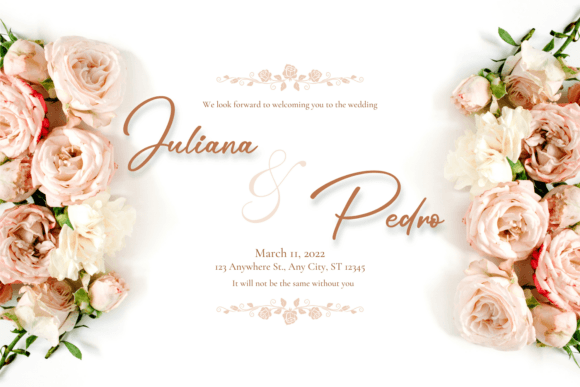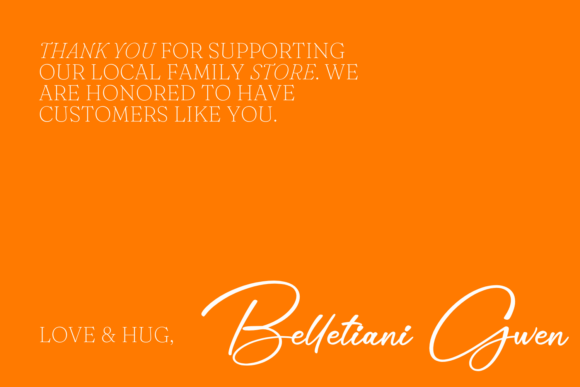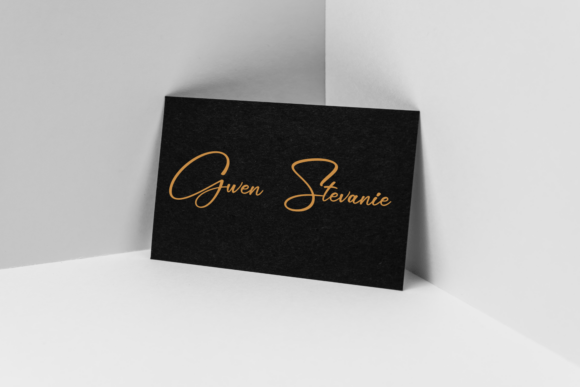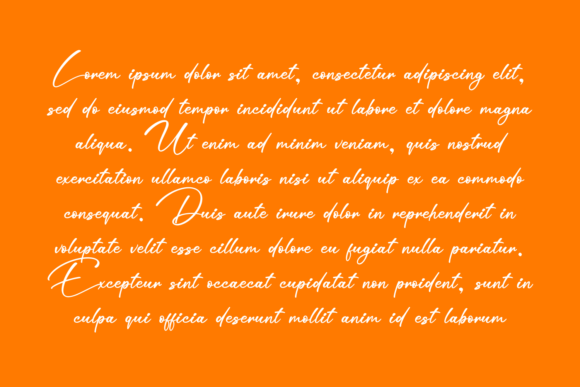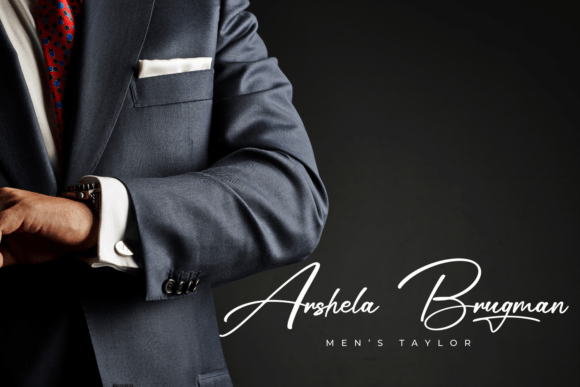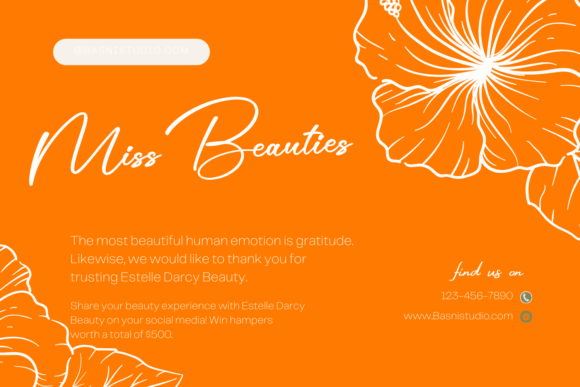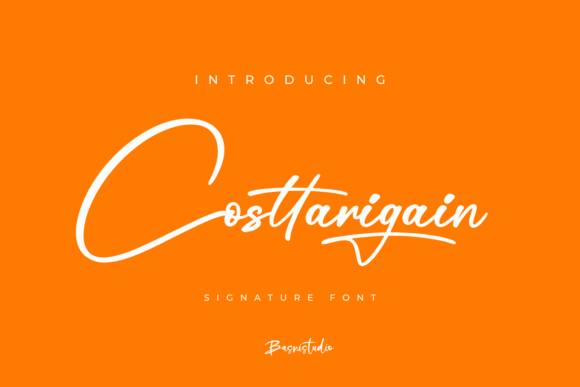
Introducing Costtarigain Font: Elevate Your Creativity with Elegance
Are you a designer, crafty DIY enthusiast, or social media influencer looking for a font that adds a touch of magic to your creative projects? Look no further than Costtarigain Font, a beautifully crafted script font that combines elegance with a whimsical flair. In this article, we’ll dive into the world of Costtarigain, exploring its features, uses, and benefits for designers and crafters alike.
A Magical Script Font for Creative Minds
Costtarigain Font is a carefully curated script font designed to bring a touch of sophistication and artistry to your creative endeavors. Whether you’re working on a DIY project, creating engaging Instagram content, or brainstorming ideas for your next design venture, this font is sure to impress. Its unique blend of classic elegance and modern flair makes it an excellent choice for a wide range of applications.
Key Features of Costtarigain Font
- Elegant Script Design: Costtarigain boasts a beautiful, flowing script design that adds a touch of luxury to any project.
- Versatile: Perfect for use in a variety of creative projects, from digital media to handmade crafts.
- Easy to Read: Despite its elegant and cursive nature, Costtarigain remains highly legible, making it suitable for both titles and body text.
- Magical Touch: The font’s unique design elements give it a whimsical feel, perfect for projects that require a bit of charm and personality.
Uses of Costtarigain Font
The versatility of Costtarigain Font makes it an excellent addition to any creative toolkit. Here are some of the many ways you can use this beautiful font:
- Instagram and Social Media: Elevate your social media posts and stories with stylish and eye-catching text. Perfect for quotes, announcements, and more.
- DIY Projects: Add a personal touch to your handmade crafts, such as journals, cards, and decorations, with the elegant script of Costtarigain.
- Graphic Design: Use Costtarigain in your professional design projects, including brochures, posters, and branding materials, to add a touch of elegance.
- Calligraphy and Lettering: Practice your calligraphy skills or create beautiful lettering pieces with the guidance of this high-quality script font.
Costtarigain Font offers numerous benefits for both designers and crafters, including:
How to Get the Most Out of Costtarigain Font
To maximize the potential of Costtarigain, consider the following tips:
- Experiment with Colors: Play around with different colors and textures to match your project’s aesthetic.
- Mix and Match: Combine Costtarigain with other fonts for interesting contrasts and visual hierarchy.
- Pay Attention to Spacing: Adjust the spacing between letters and lines to achieve the desired flow and readability.
- Practice Makes Perfect: Don’t be afraid to experiment and try new things. The more you work with Costtarigain, the more you’ll discover its capabilities.